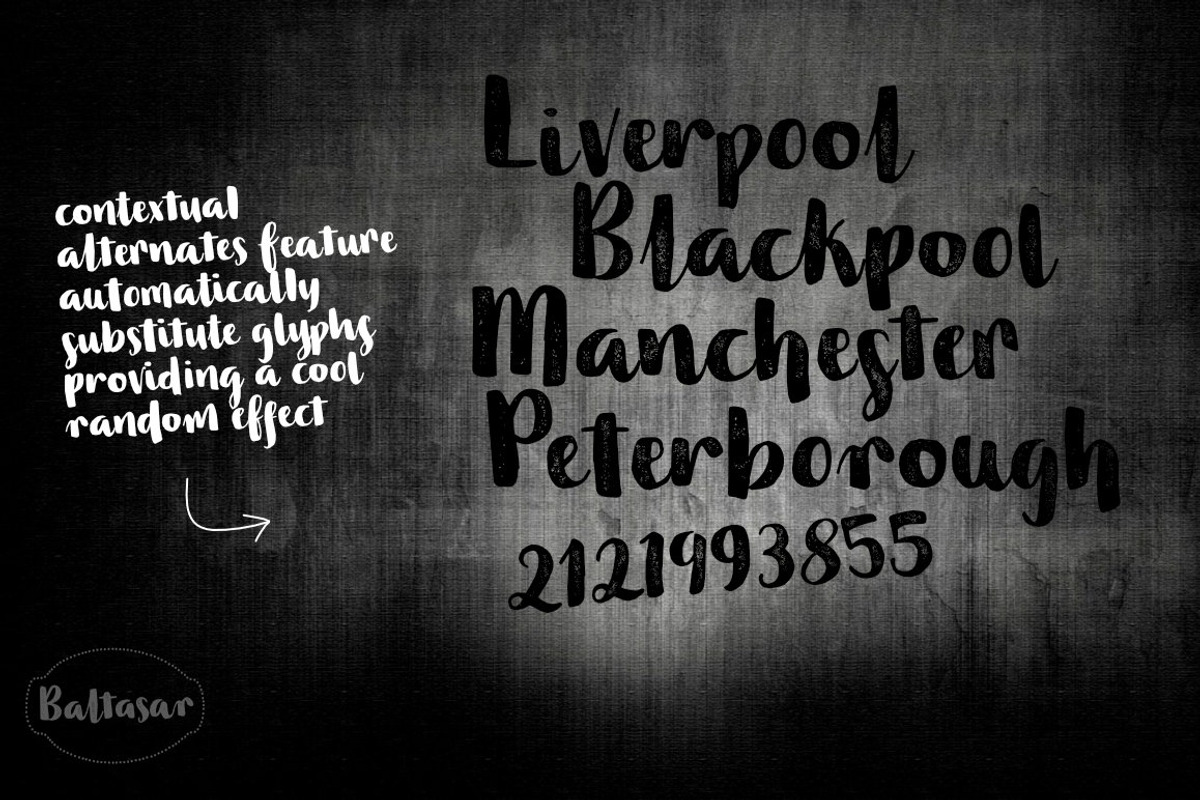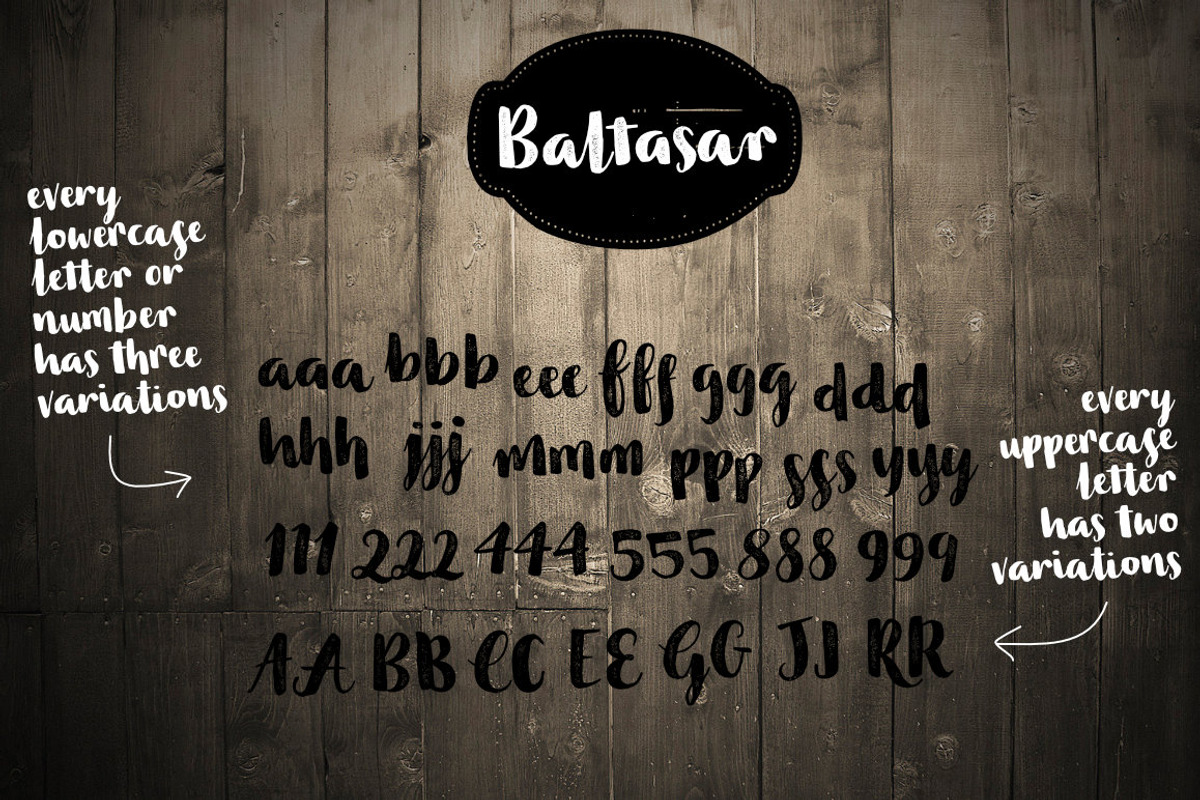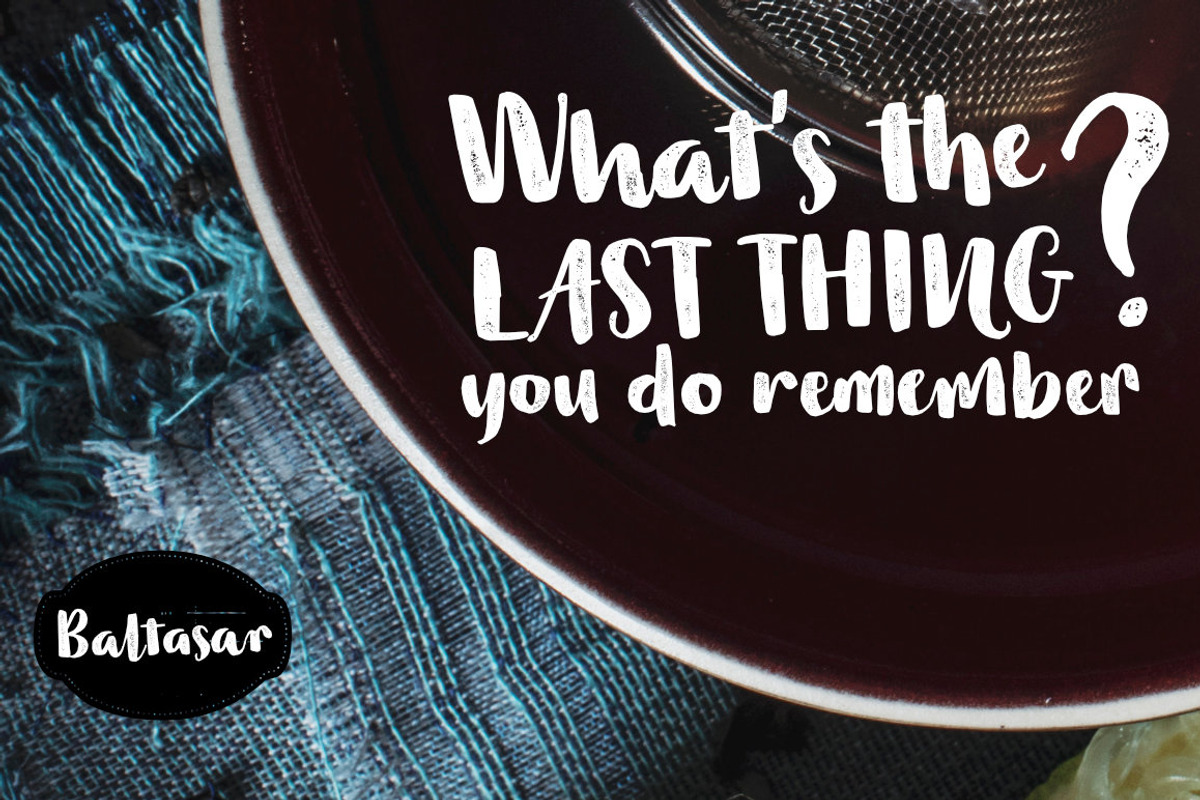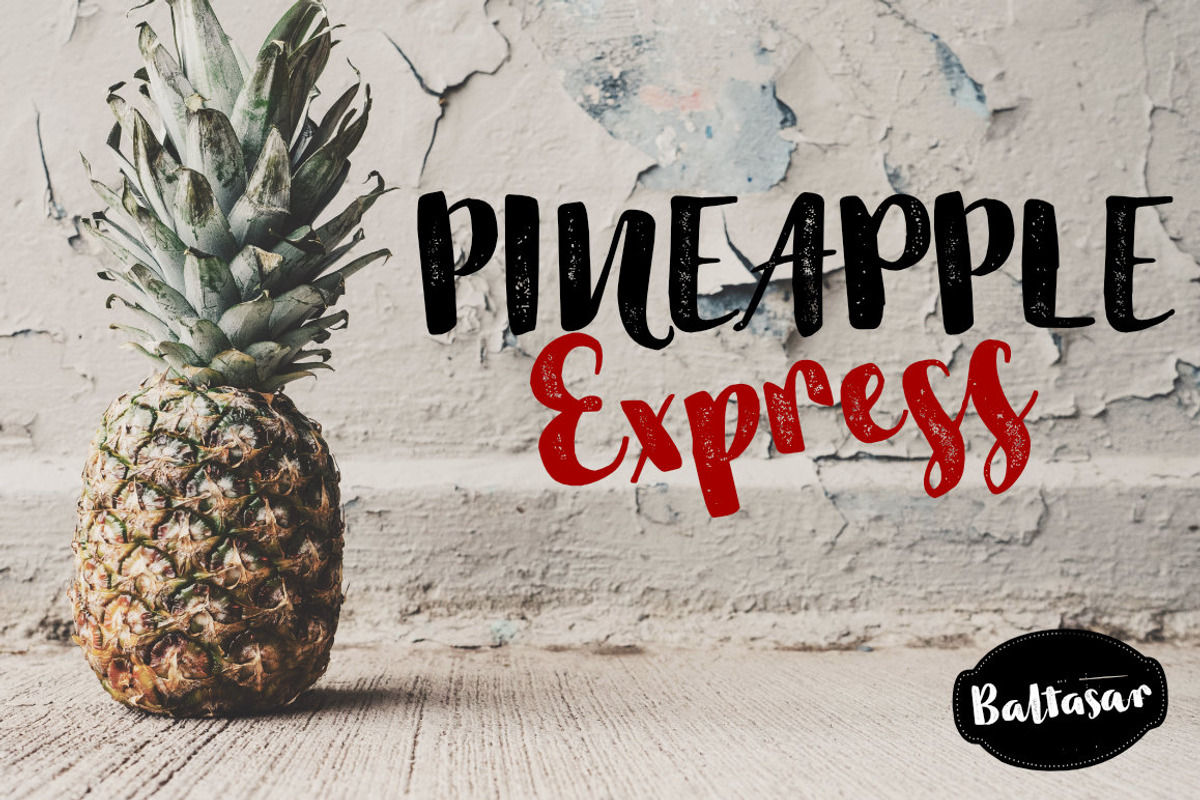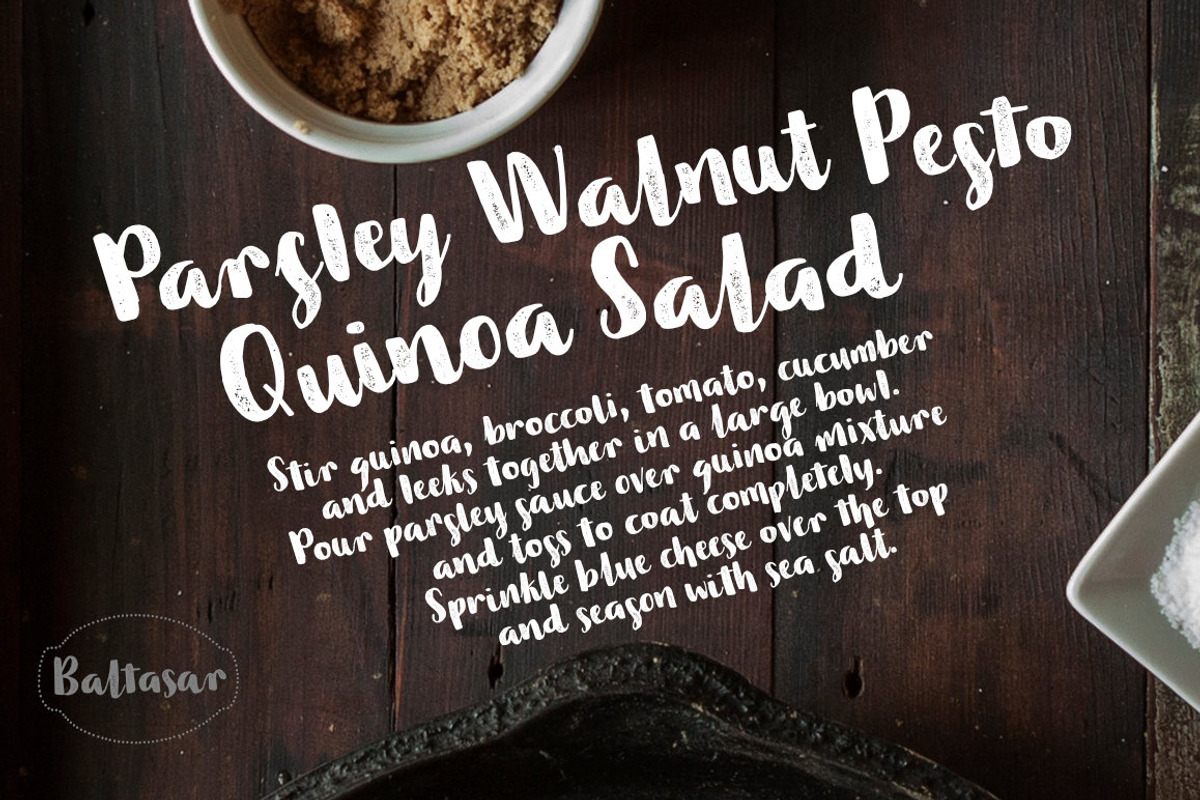
Baltasar - 2 fonts
Baltasar - 2 fonts by Leitmotif is a font selected for branding, posters, packaging, typography.
- Language support includes Western, Central and Eastern European character sets, as well as Baltic and Turkish languages.
- Baltasar is a handwritten, brush script with ligatures and contextual alternates to help with flow and readability.
- Every lowercase letter has three variations.
- When the font is used in OpenType-savvy applications, the 3 variants of glyphs are automatically alternated to achieve a random-like effect.